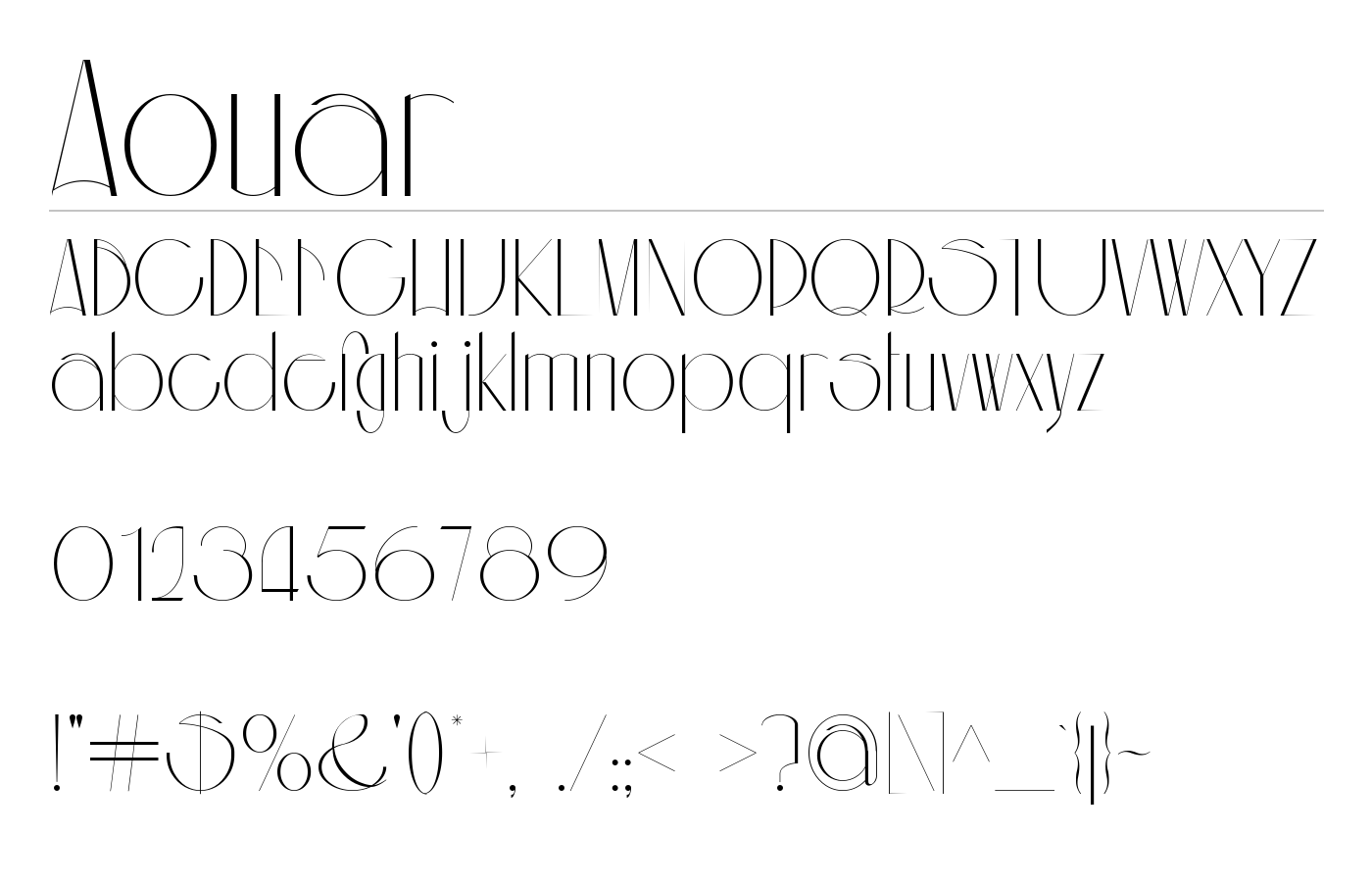
Aouar is an elegant, ultra-thin sans serif font with a modern and sophisticated feel, characterized by its high contrast between fine lines and subtle curves. Its tall, narrow letterforms and unique strokes create a stylish, delicate appearance perfect for luxury branding, fashion editorials, and upscale headlines where a refined, contemporary look is desired. This font works best in large sizes where its intricate details can shine, making it ideal for logos, posters, and editorial headlines.
Aouar Font
About Aouar Font